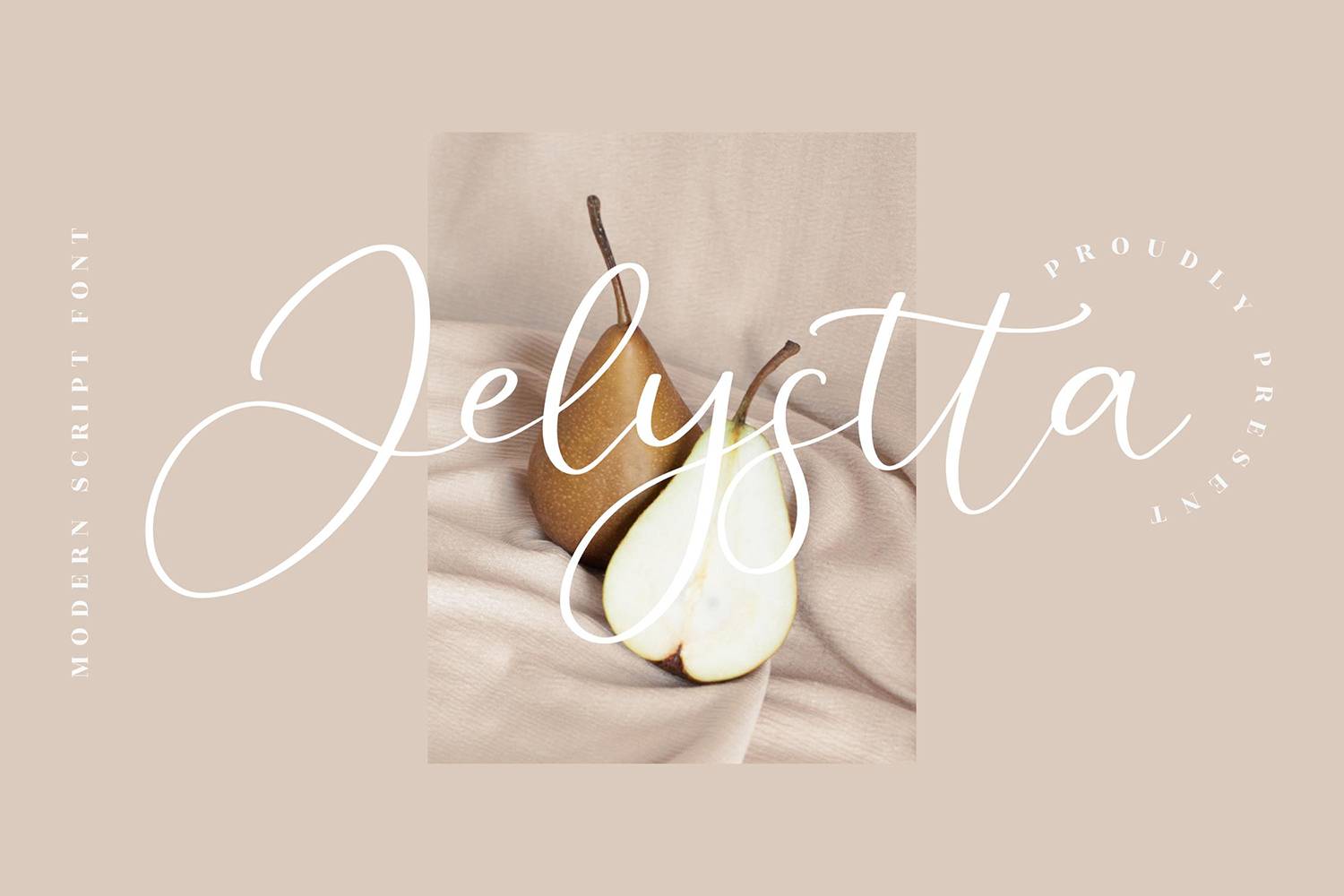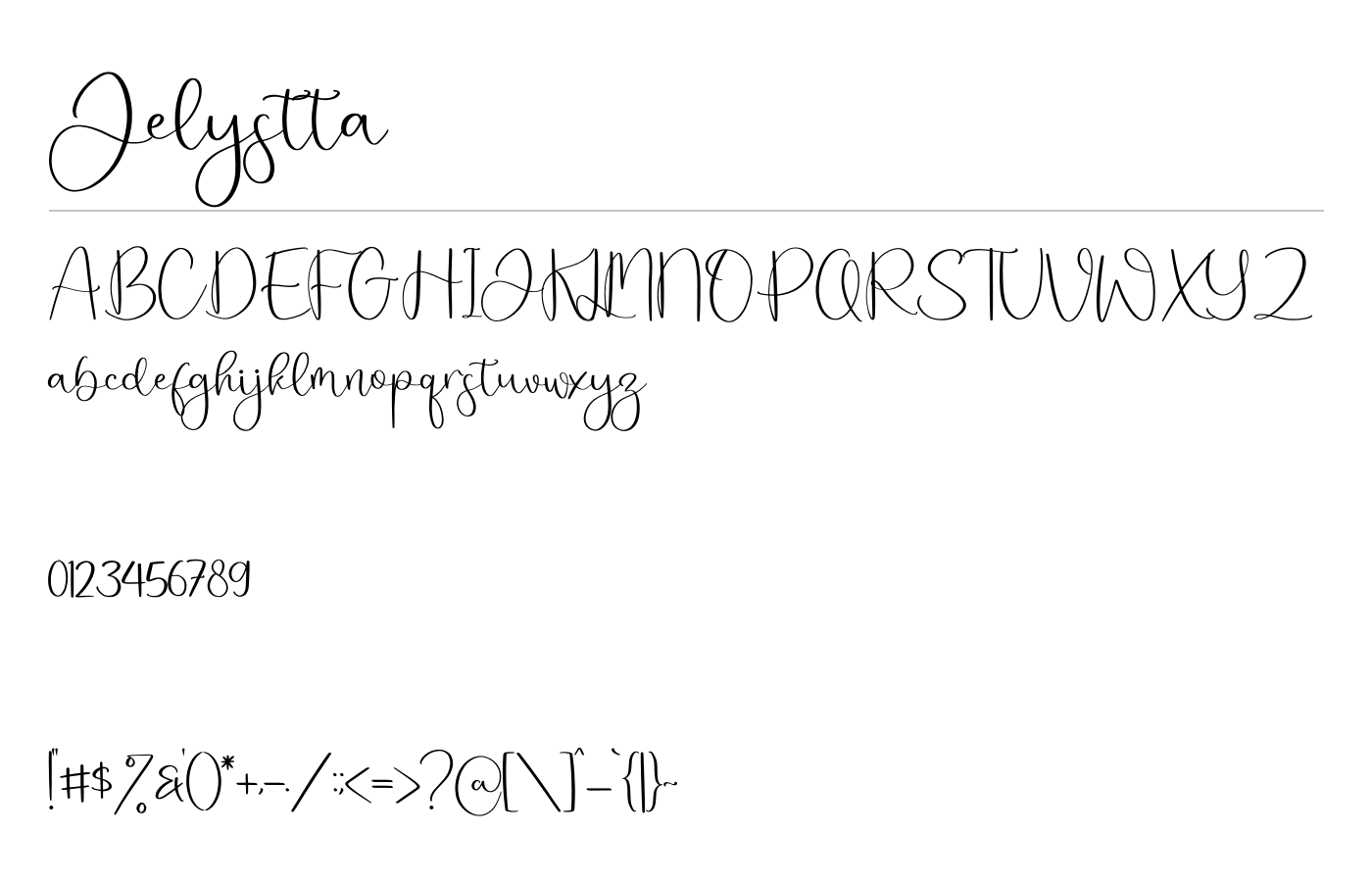
Jelystta is a delicate, handwritten script font characterized by slender strokes and playful loops, giving it a whimsical yet elegant feel. Its thin weight and airy spacing make it ideal for feminine branding, invitations, or creative designs that require a gentle, personal touch. This font works wonderfully in headlines or logos where a graceful, artistic vibe is desired without overwhelming the overall design.
Jelystta Font